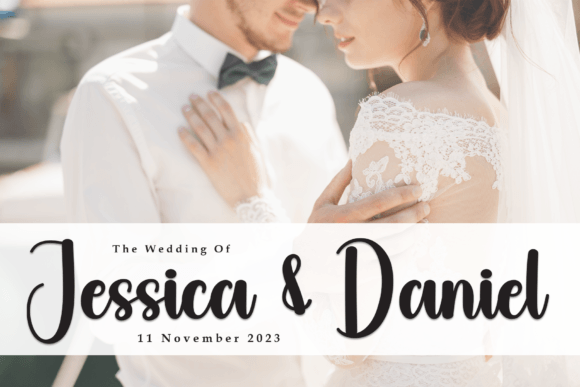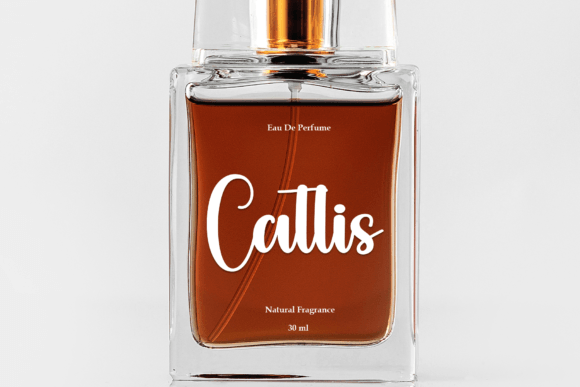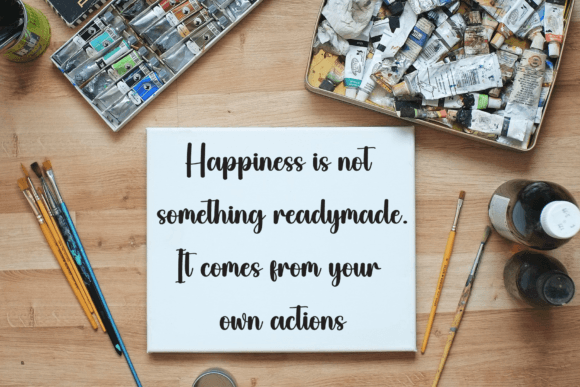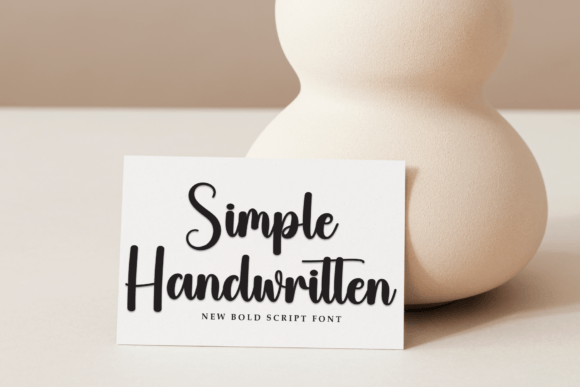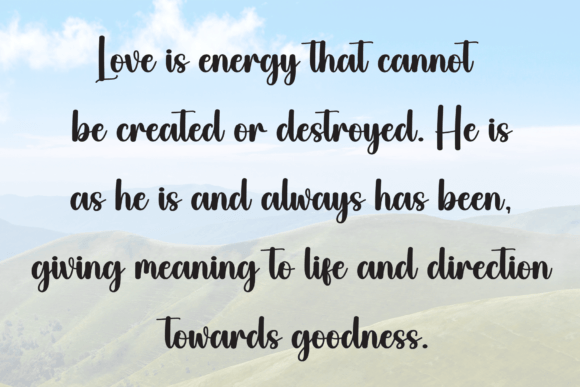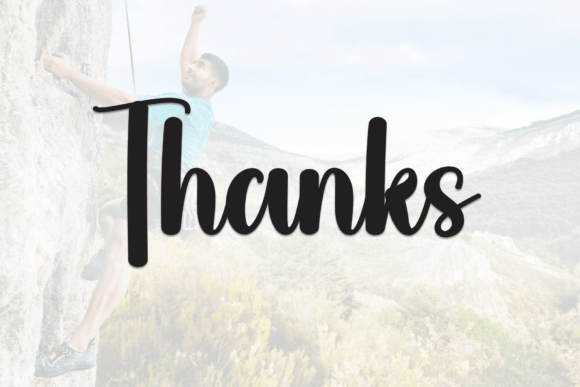
The Sweet Charm of Climbing Font: A Designer’s Delight
I’ll never forget the time I was working on a wedding invitation project, and my client asked for a font that was “fun, yet elegant.” I scoured the internet, trying out font after font, but nothing seemed quite right. That was until I stumbled upon Climbing Font. This sweet and friendly handwritten display font won my heart, and I’ve been hooked ever since! 💕
An Honest Review of Climbing Font
- ✨ Cute and Fun: Climbing Font is perfect for adding a playful touch to any design project. Its handwritten charm makes it ideal for wedding invitations, cards, and more.
- ✅ Elegant yet Approachable: This font strikes the perfect balance between sophistication and friendliness. It’s perfect for designs that need a touch of whimsy without being too over-the-top.
- 💫 Versatile: Climbing Font can be used for a wide range of projects, from paper crafts to digital designs.
While Climbing Font is an amazing font, it’s not without its quirks. For example:
- 🤔 Limited use for body text: Due to its decorative nature, Climbing Font is best suited for headlines and titles. It may not be the best choice for longer blocks of text.
- ⚠️ Some letters may require manual kerning: As with any handwritten font, some letters may need a bit of manual kerning to get them looking just right.
- Experiment with OpenType features, such as glyphs and stylistic alternates, to add more personality to your text.
The Story Behind Climbing Font
Climbing Font was designed with love and care by a talented type designer. The font’s creator wanted to craft a font that was both elegant and approachable, perfect for designs that needed a touch of whimsy. With its sweet, handwritten charm, Climbing Font has become a favorite among designers and crafters alike.
Q: What type of projects is Climbing Font best suited for?
A: Climbing Font is perfect for designs that need a playful, yet elegant touch, such as wedding invitations, cards, and paper crafts.